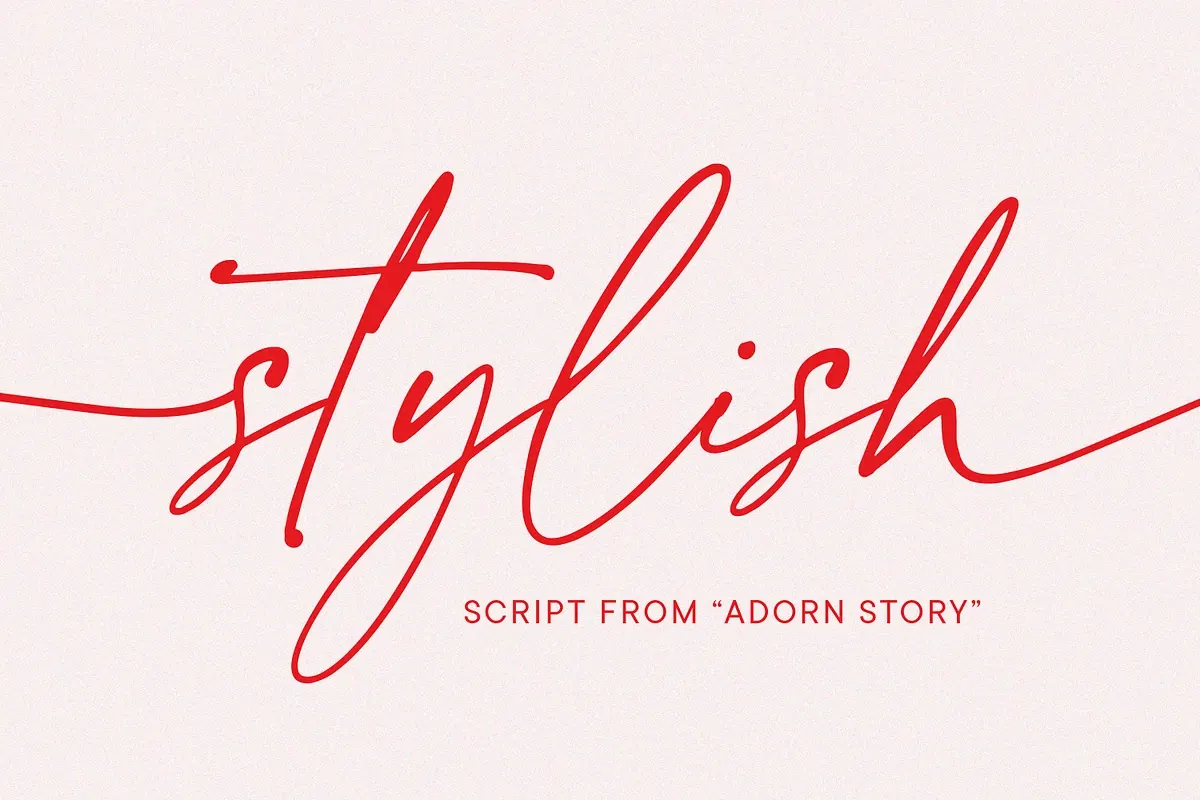
The Adorn Story Script Font Free Download is an elegant and flowing handwritten script typeface that exudes sophistication and charm. Perfect for wedding invitations, branding, logos, greeting cards, and high-end stationery, this font brings a refined, personal touch to your designs.
With its graceful curves, delicate strokes, and natural flow, Adorn Story adds a timeless and romantic feel to any project. It includes uppercase and lowercase letters, stylistic alternates, ligatures, punctuation, and multilingual support, offering versatility and customization for a variety of design needs.